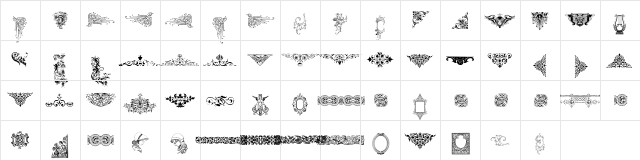
Victorian Free Ornaments Two Regular
Design Context for Victorian Free Ornaments Two Typeface
Victorian Free Ornaments Two brings ornamental detail and strong personality to headlines and identities, where visual impact matters more than quiet functionality.
Font Pairing: Pair with a clean neutral sans-serif for body copy to let Victorian Free Ornaments Two's character lead without overwhelming the composition.
Pro Tip: Treat Victorian Free Ornaments Two as the centrepiece of your typographic hierarchy. One strong heading set in a decorative face can carry an entire layout.